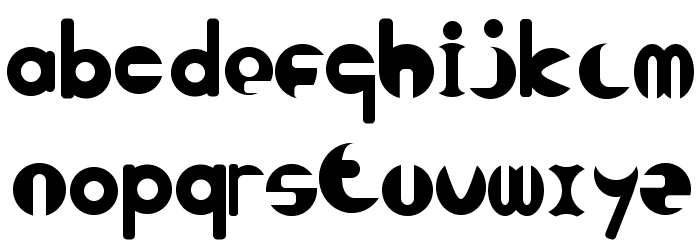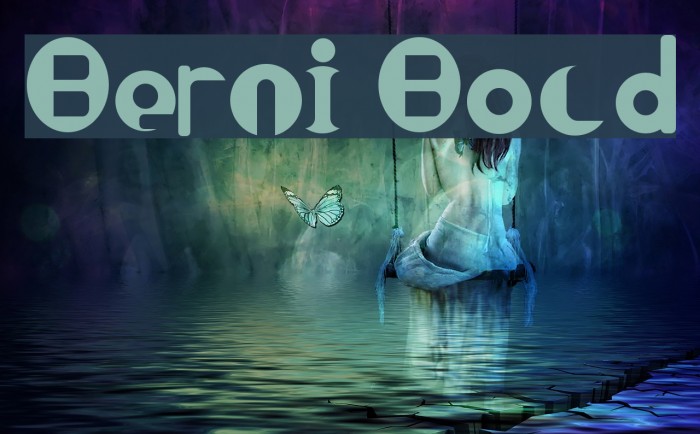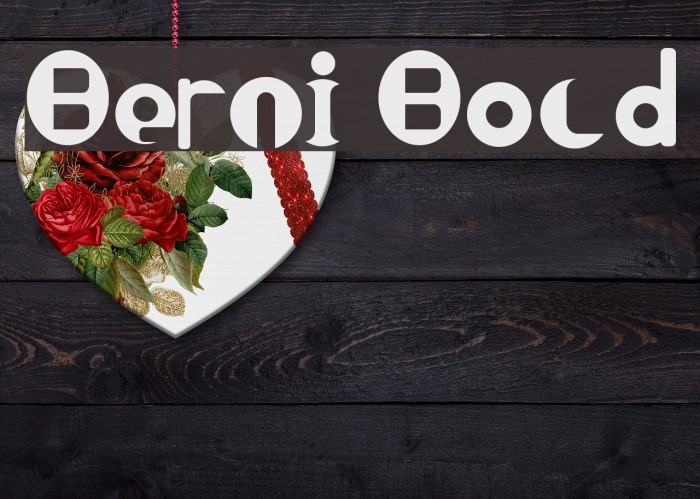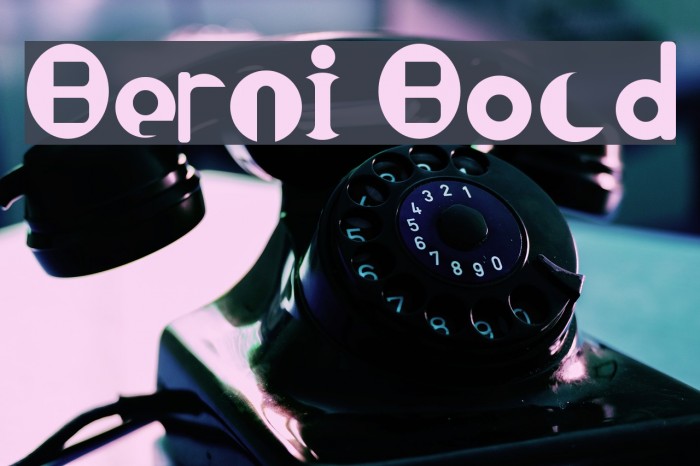
Berni Bold Font
This font features a bold and playful design with a modern twist. The characters are rounded and have a unique, almost futuristic appearance. The uppercase letters are particularly striking, with a strong geometric influence that gives them a distinctive look. The lowercase letters maintain the playful style, with consistent curves and bold strokes. The numbers are equally bold, with a clear and legible design. Special characters are designed to match the overall style, ensuring a cohesive appearance across all text. This font is perfect for projects that require a bold and modern aesthetic.
A bold, playful font with a modern, geometric style.
- Proposed Projects: Ideal for branding, posters, headlines, and any project needing a bold, modern look.